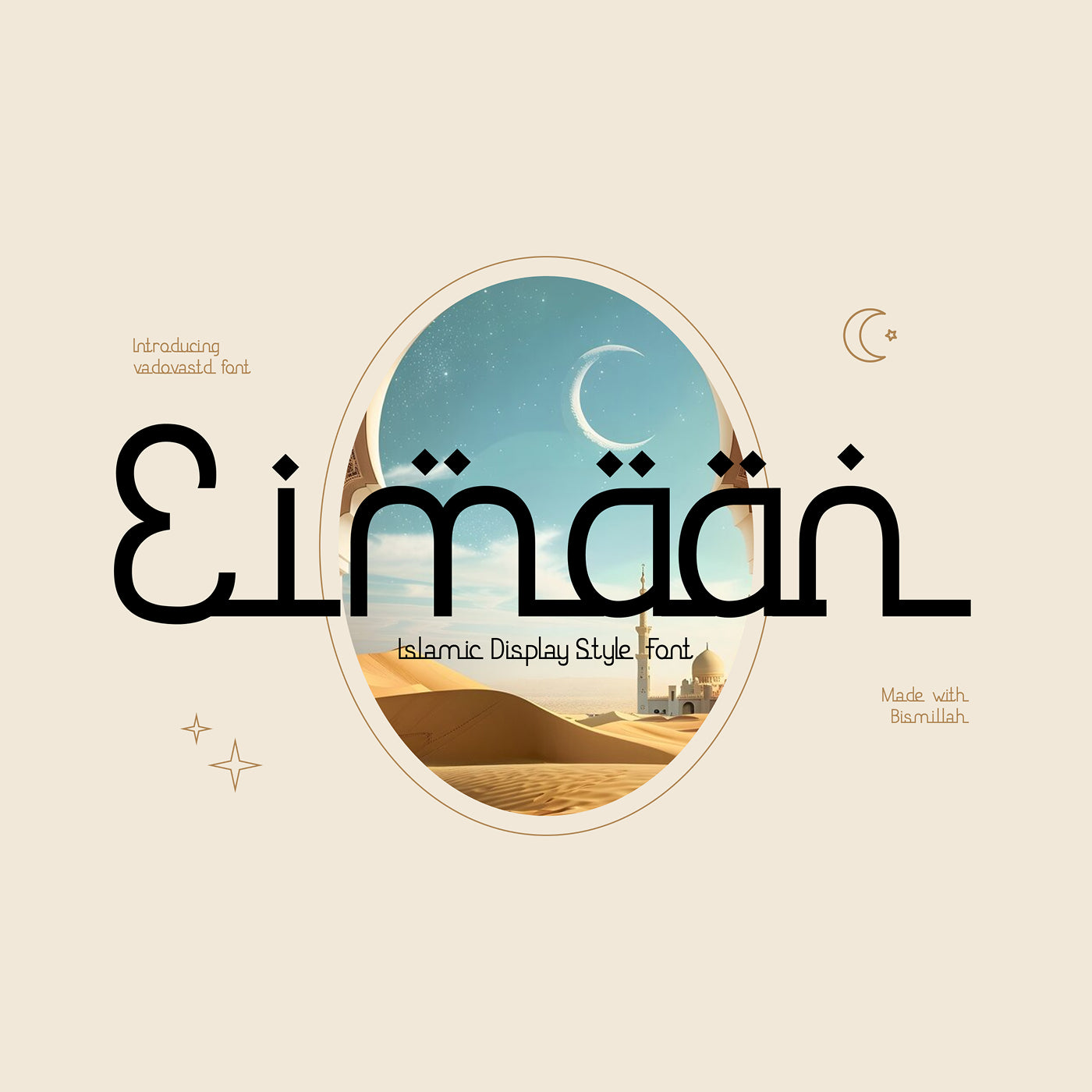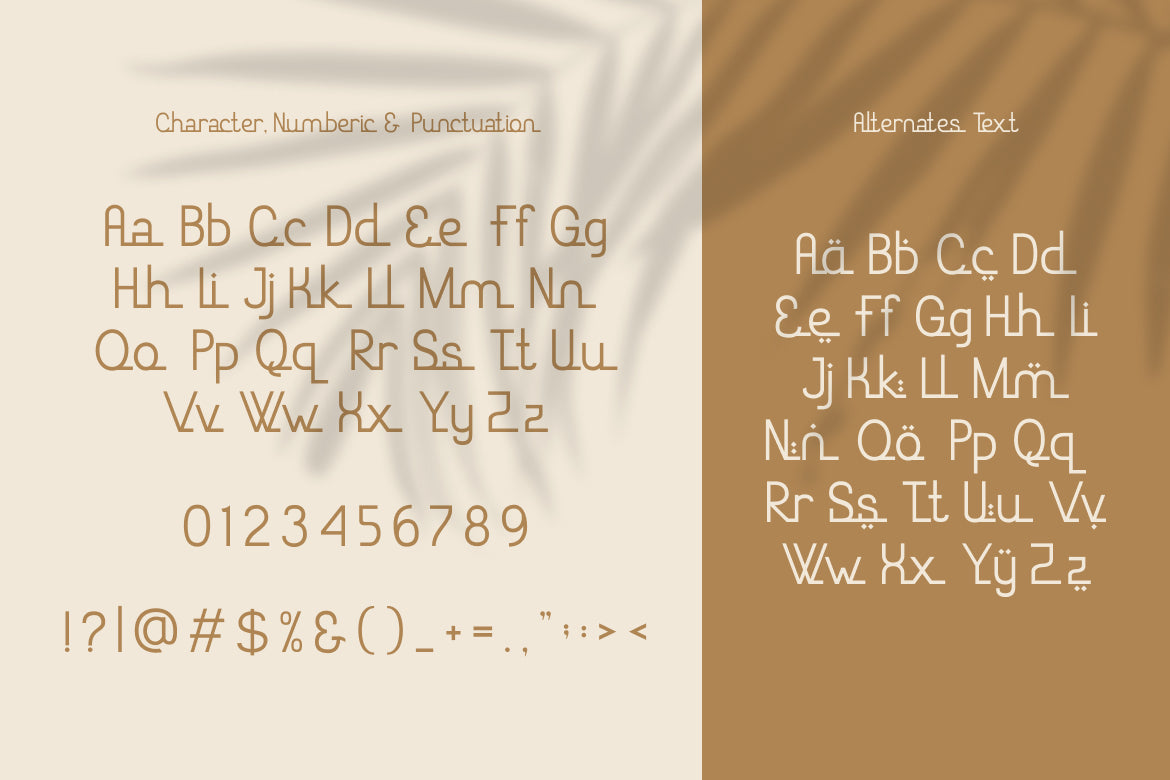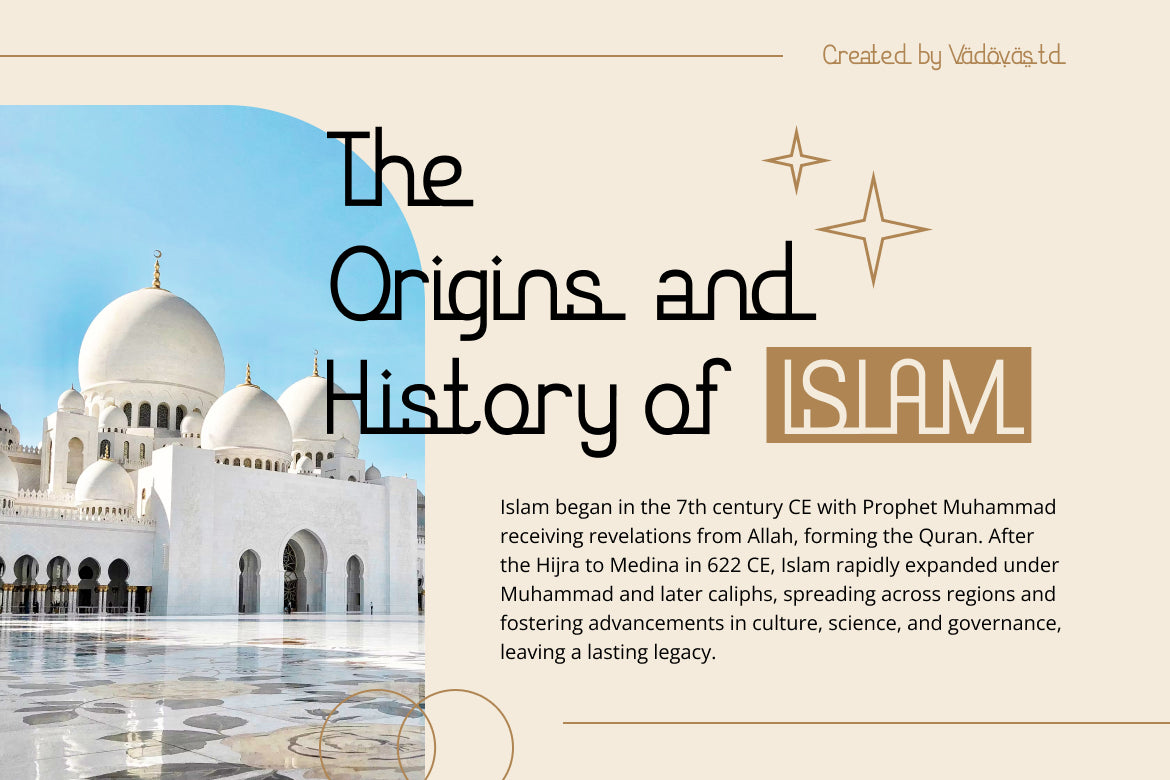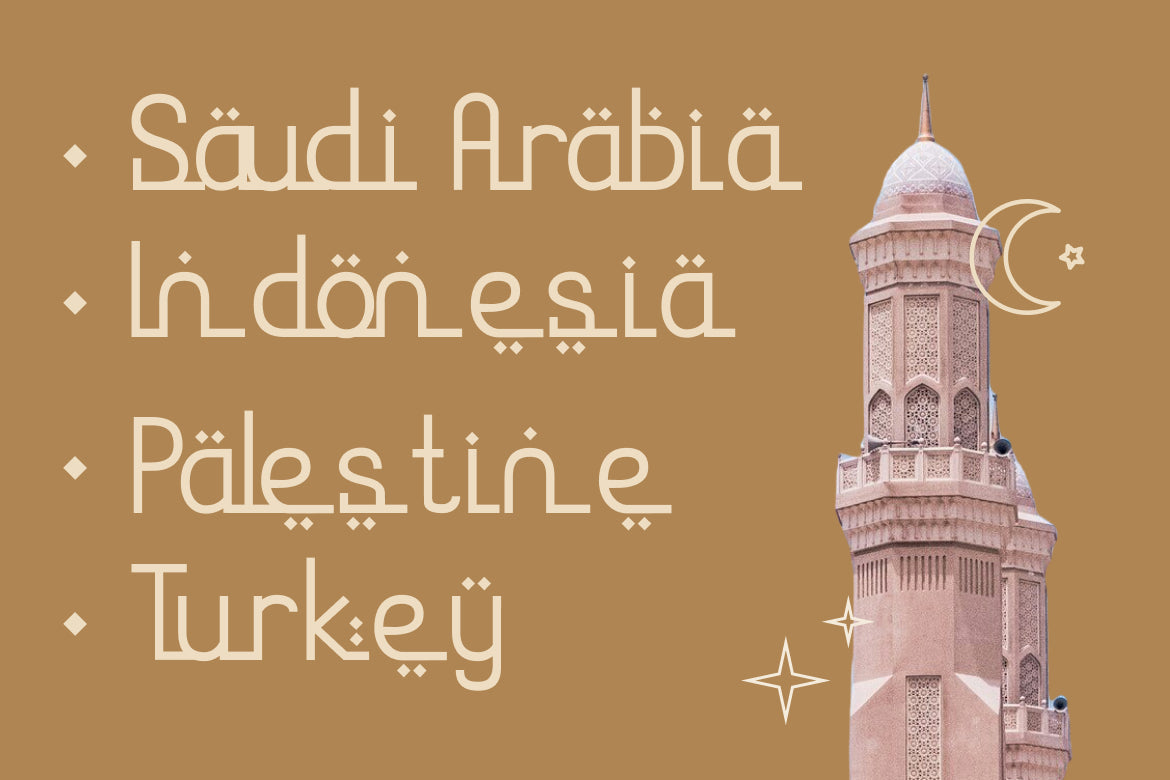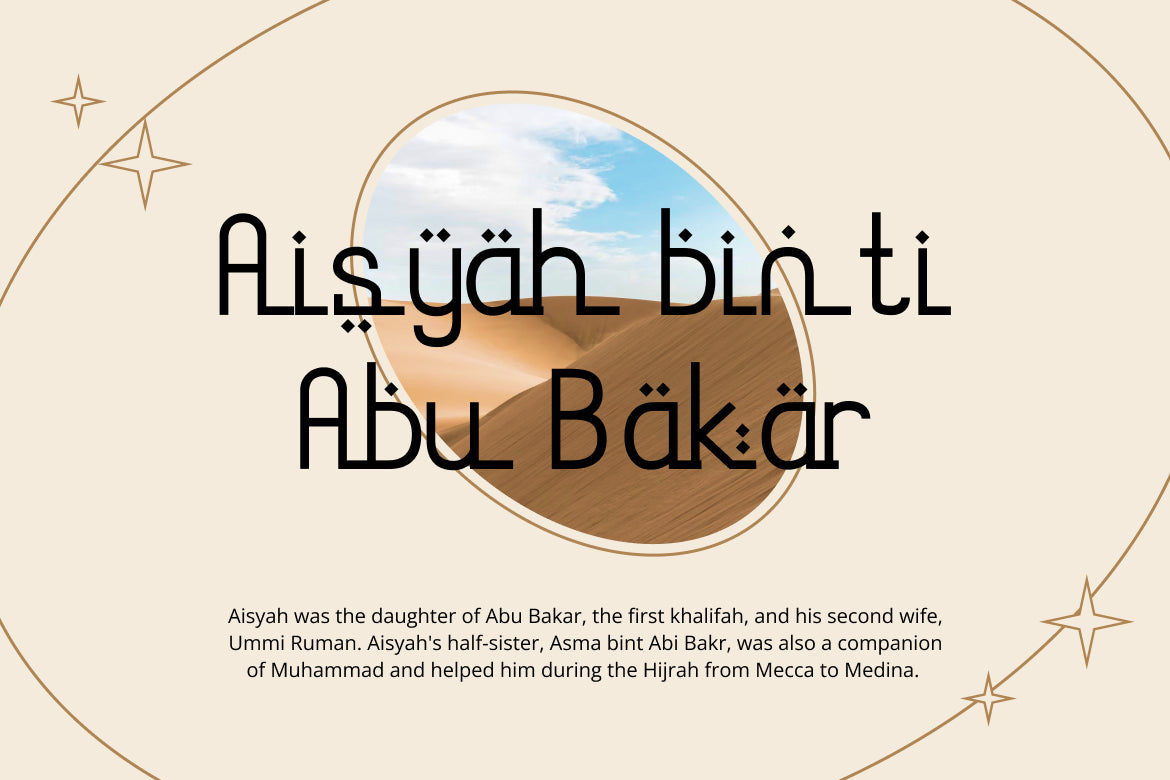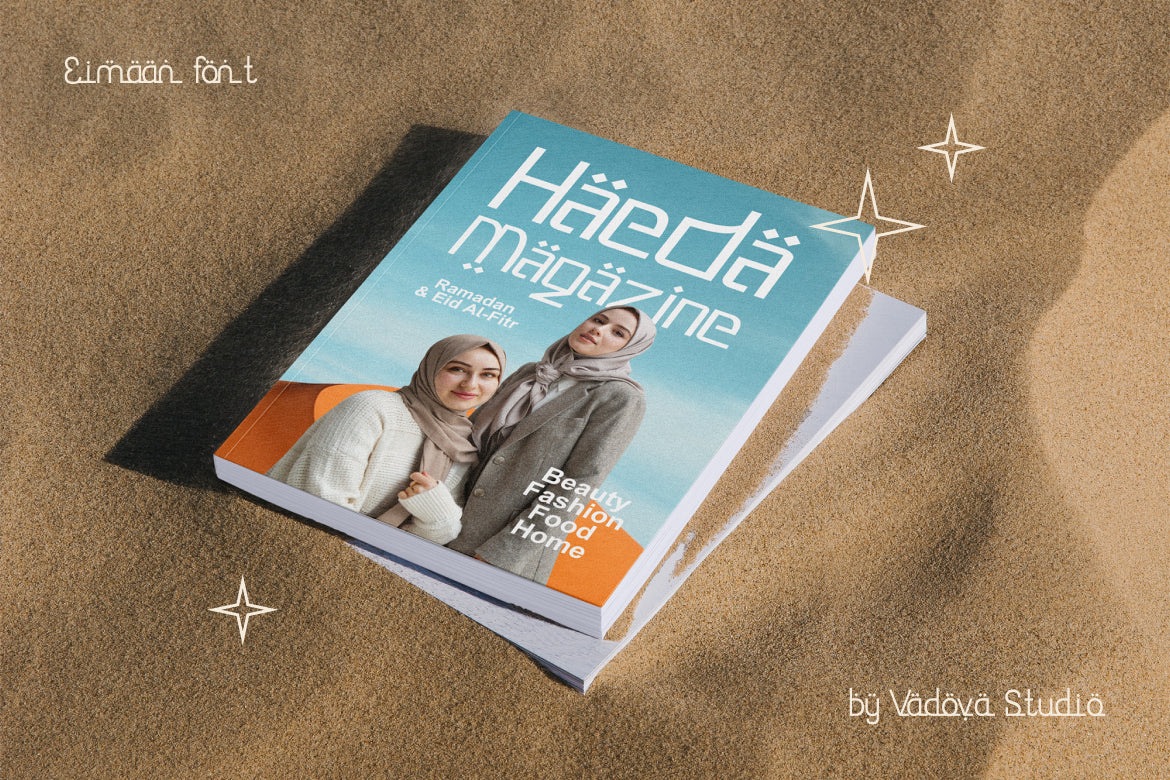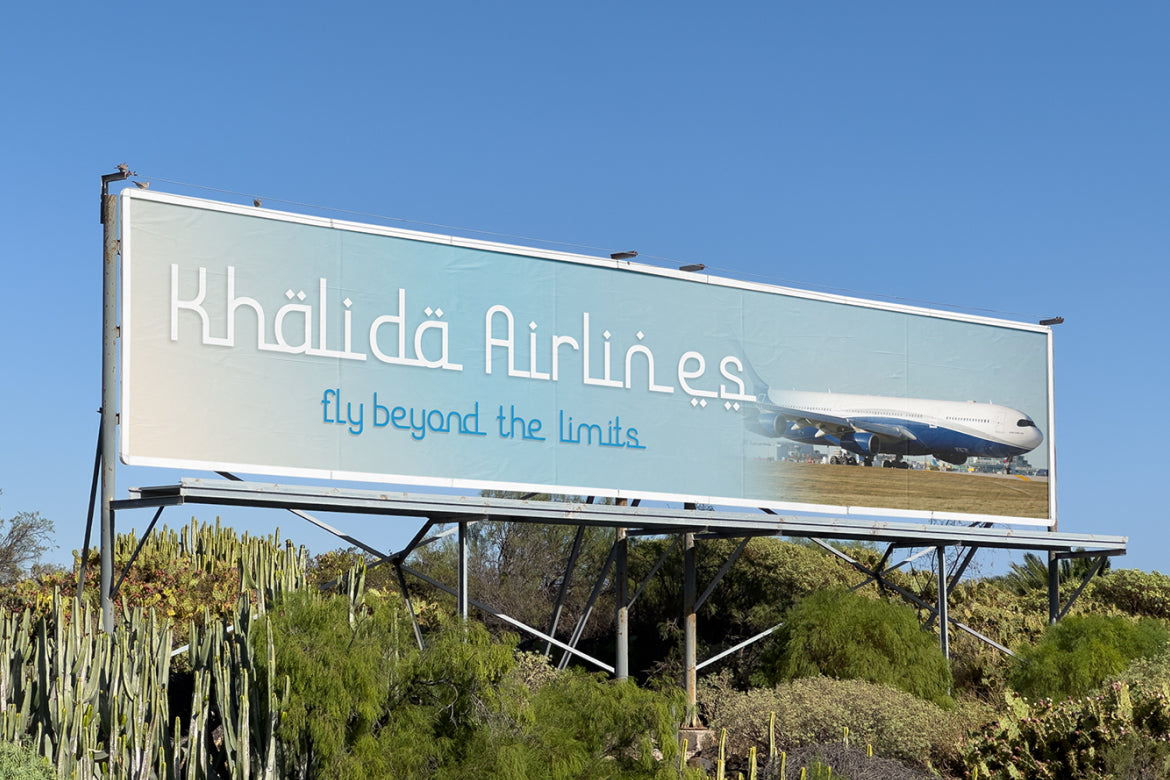
Eimaan Islamic Display Style Font
Eimaan Islamic Font is a creative Islamic-inspired display font designed with a harmonious blend of Arabic calligraphic nuances and modern Latin readability. With unique alternates, diacritic-style accents, and flowing forms, this typeface brings spiritual elegance to contemporary designs. Ideal for Ramadan banners, Eid Mubarak greetings, Islamic product packaging, mosque branding, and Quranic call-outs, Eimään offers authenticity and versatility. Its alternate characters and ornamental touches make it perfect for meaningful and expressive design.
Eimaan Islamic Display Style Font is a versatile typeface that combines Arabic calligraphic elements with modern Latin readability, featuring unique alternates, diacritic-style accents, and flowing forms. It is available in TTF, OTF, and WOFF formats, includes uppercase and lowercase characters, as well as numerals and punctuation.